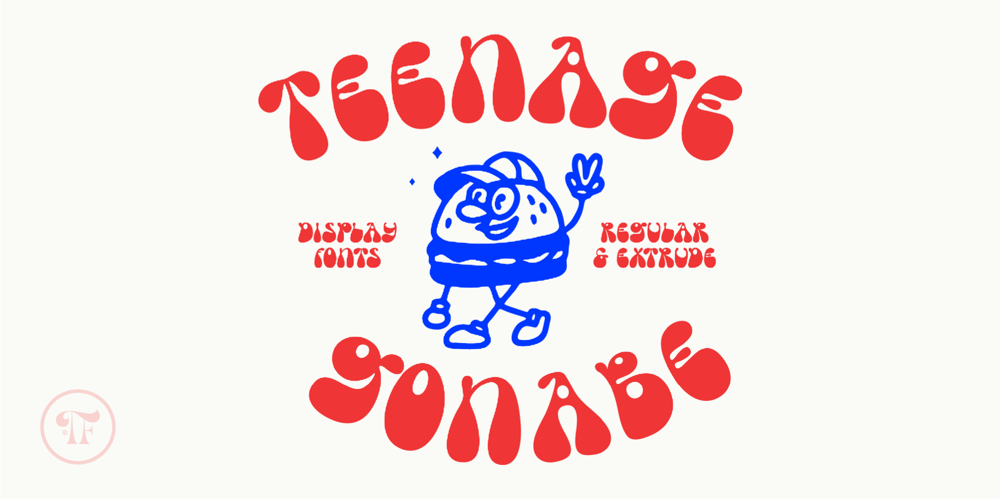
Teenage Gonabe Font Family was designed by Miftahul Habib and published by Teenage Foundry. Teenage Gonabe contains 2 styles and family package options. Teenage Gonabe – Groovy Display Font By Teenage FoundryIntroducing our latest font creation – a groovy typeface that’s sure to transport you back to the funky, psychedelic era of the 60s and 70s! With its bold, playful style and unique character, this font is perfect for adding a retro feel to your design projects.This font is incredibly versatile and can be used for a range of design projects, including posters, album covers, branding, and more. Its groovy style gives it a unique character that’s sure to make an impact.Features: Uppercase, Lowercase, Numeral, Punctuation & Multilingual.For any questions please contact me 🙂Thanks!